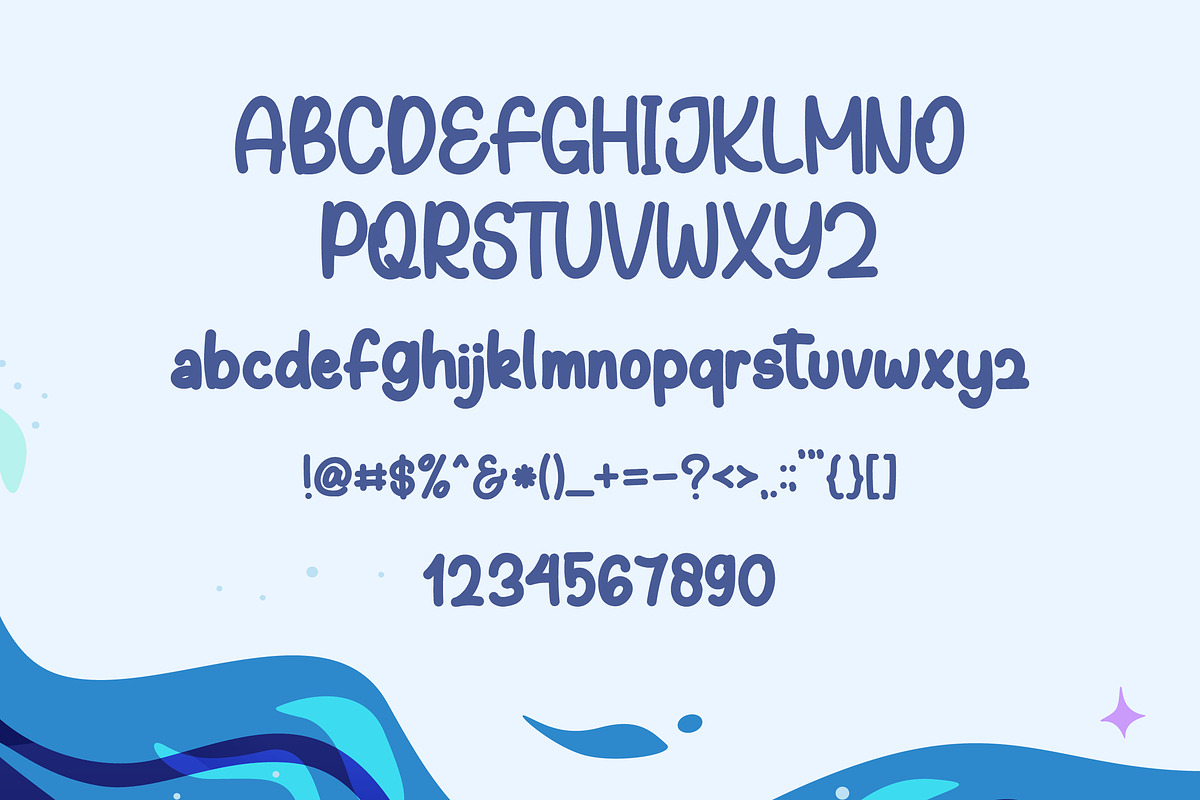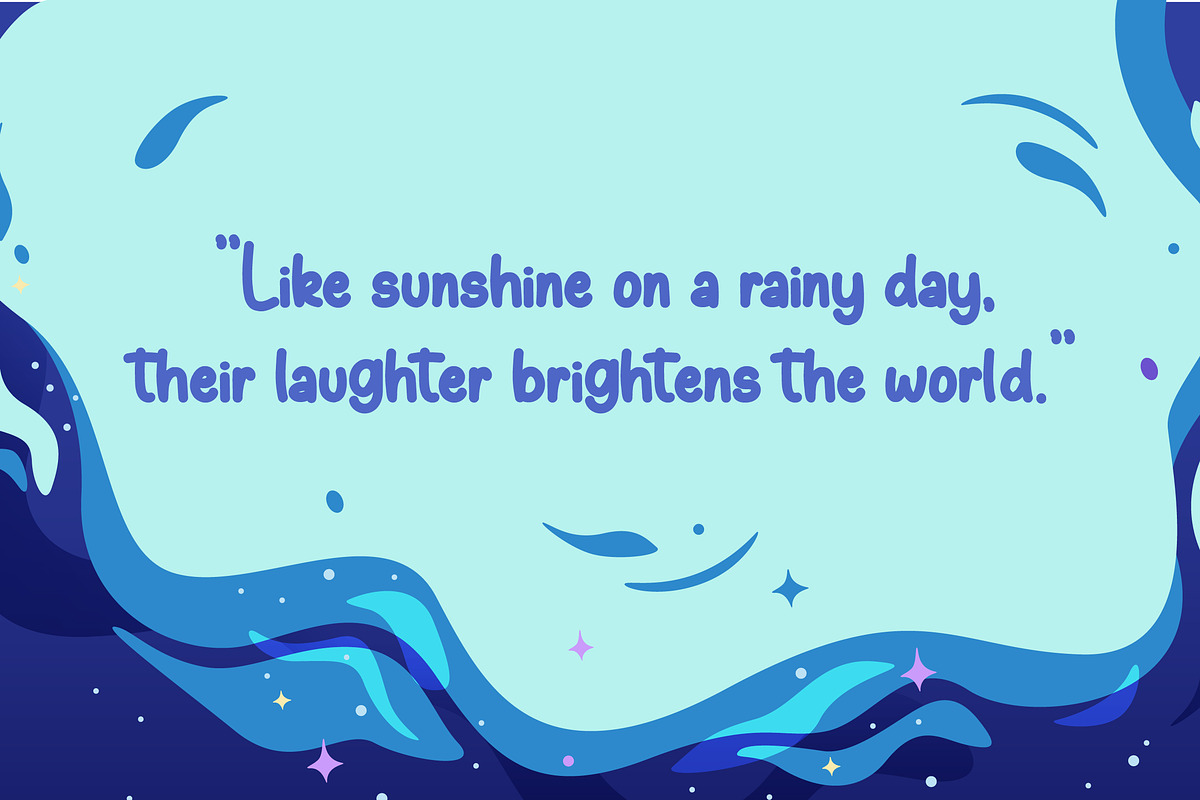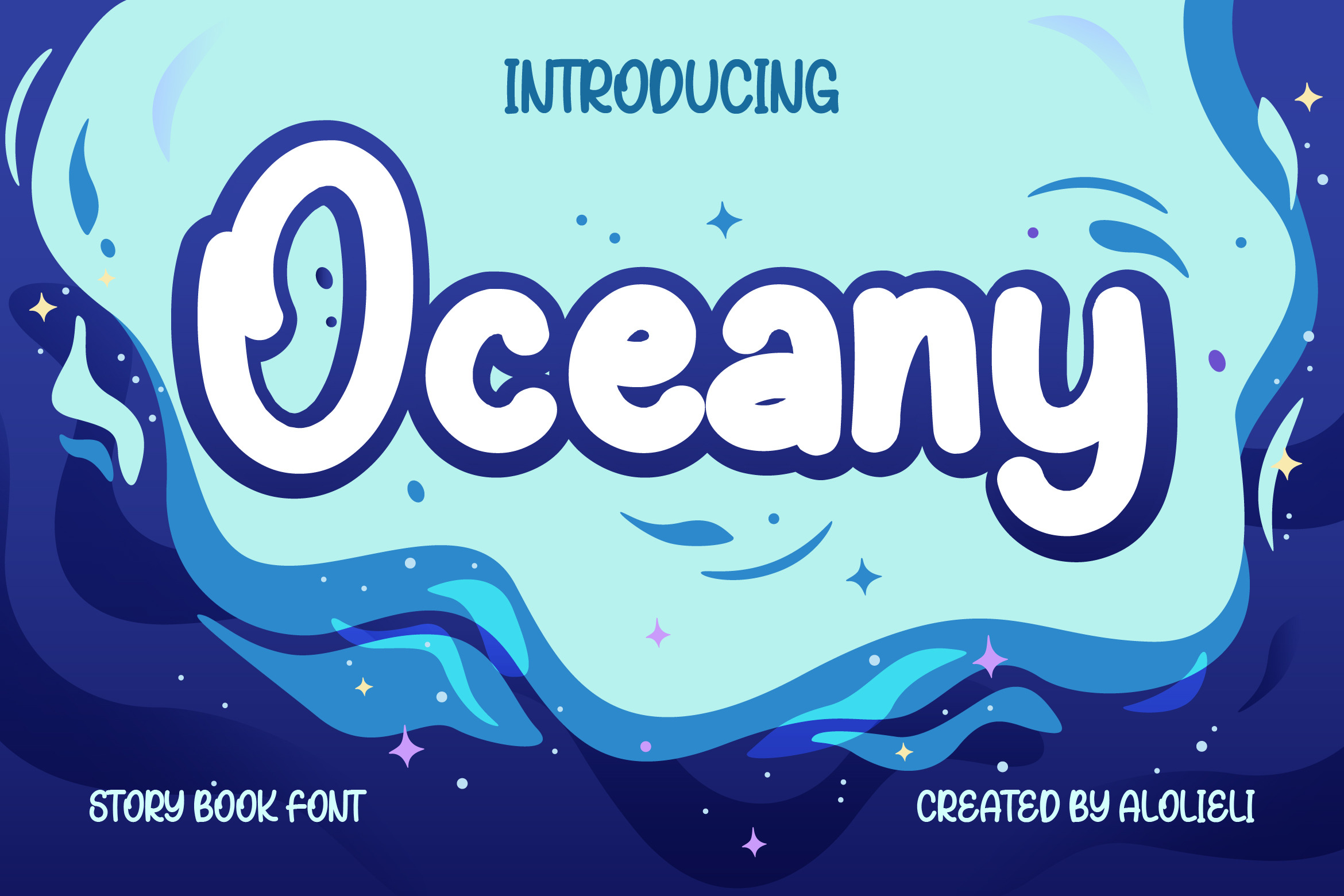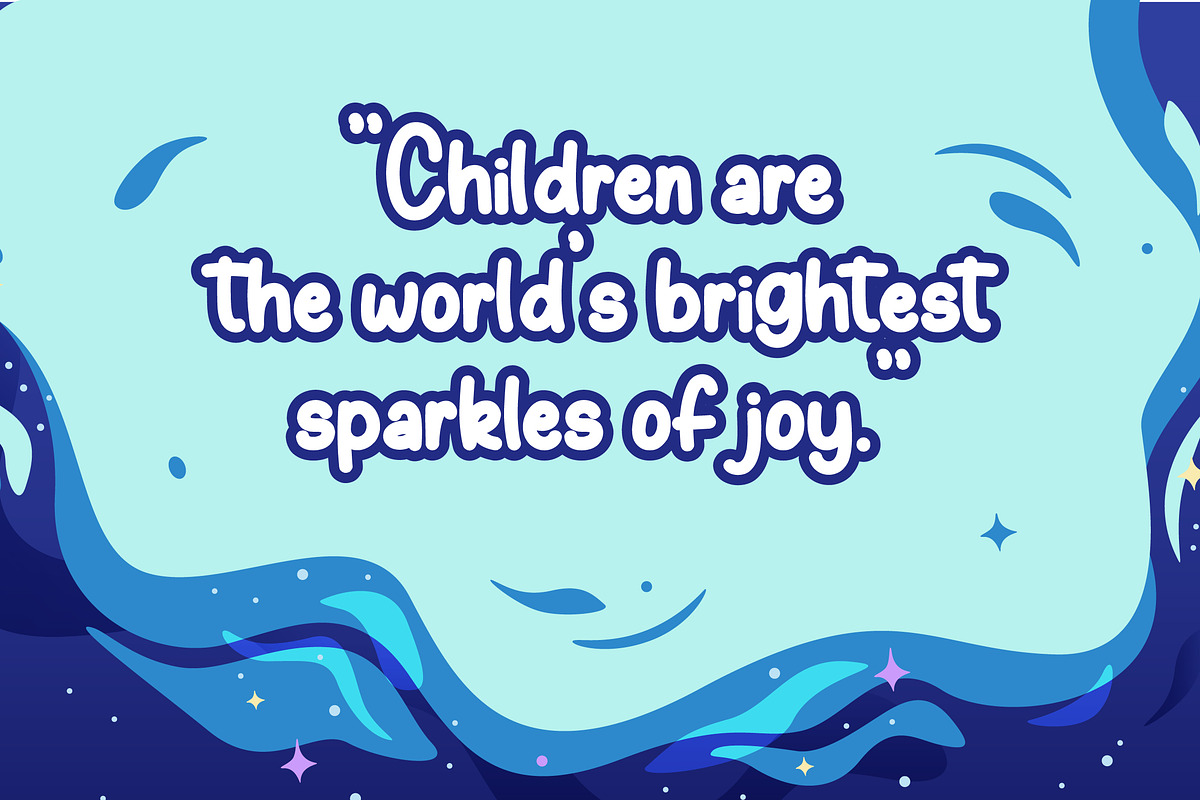
Oceany - Story Book Font
Introducing Oceany,
a whimsical storybook font designed to bring the magic of the sea to your designs. With its playful, bubbly characters and fluid curves, Oceany captures the essence of underwater adventures and endless imagination. This font is perfect for creating enchanting children's books, playful educational materials, and vibrant invitations. Dive into the charm of Oceany and let your creativity flow like the ocean waves. Plus, it supports multiple languages, making it versatile for a global audience.
Get ready to create captivating and joyful designs with Oceany!